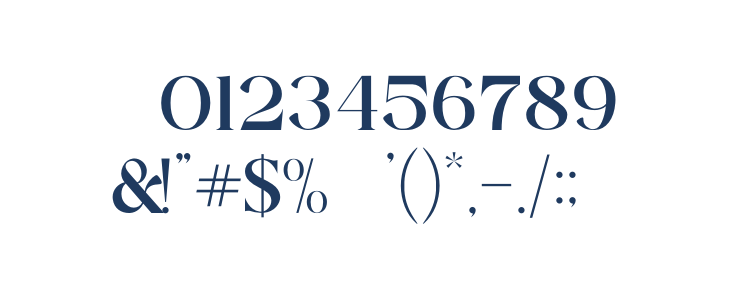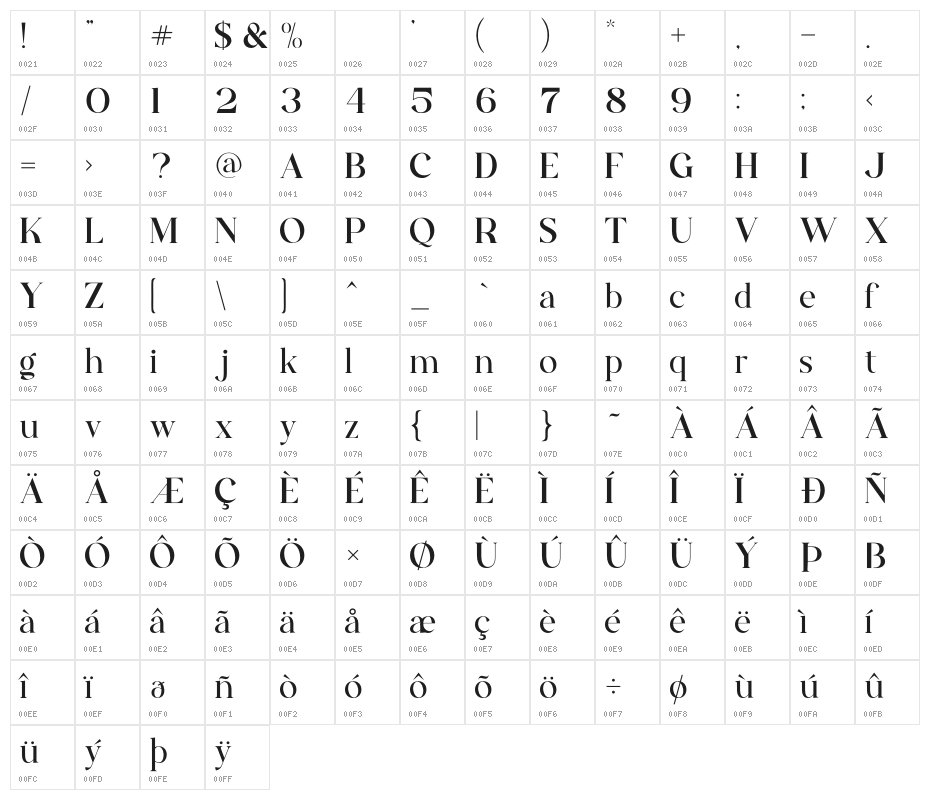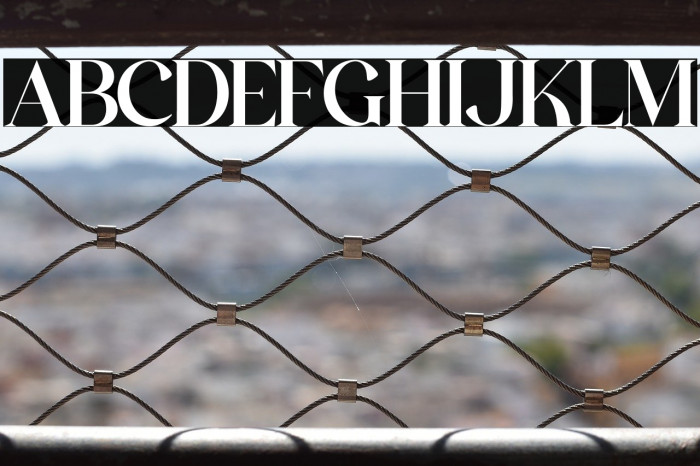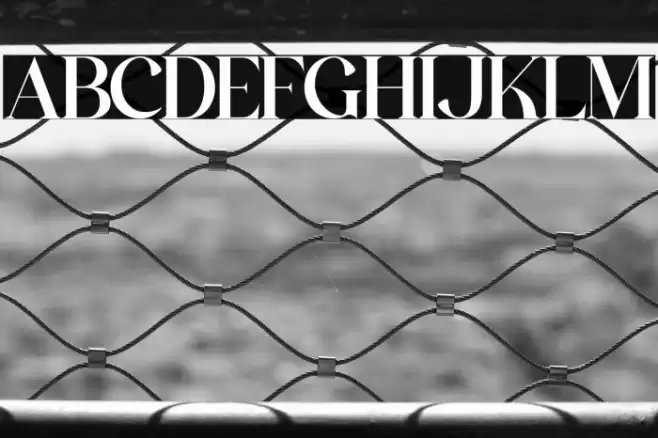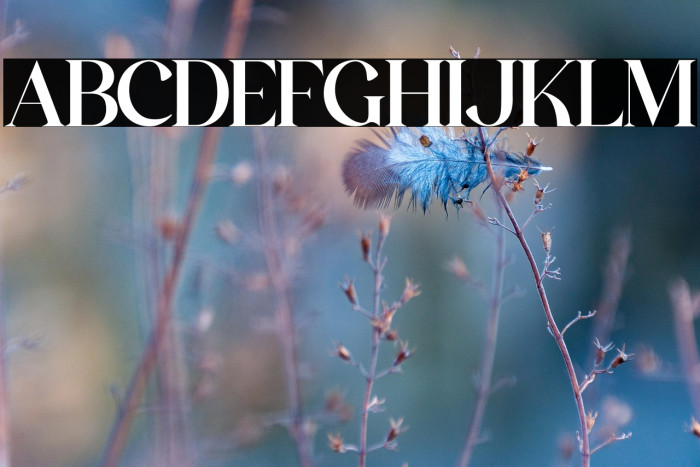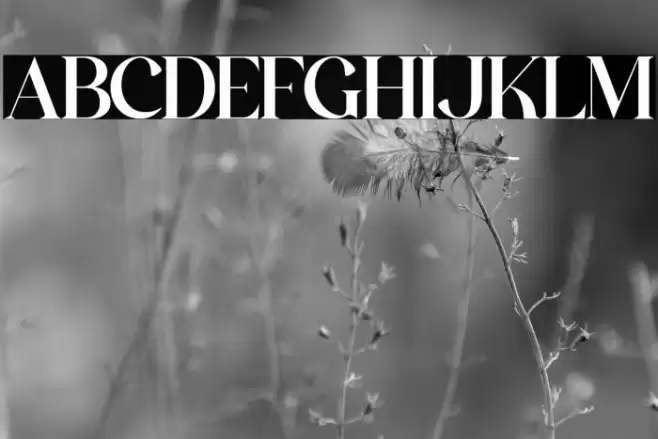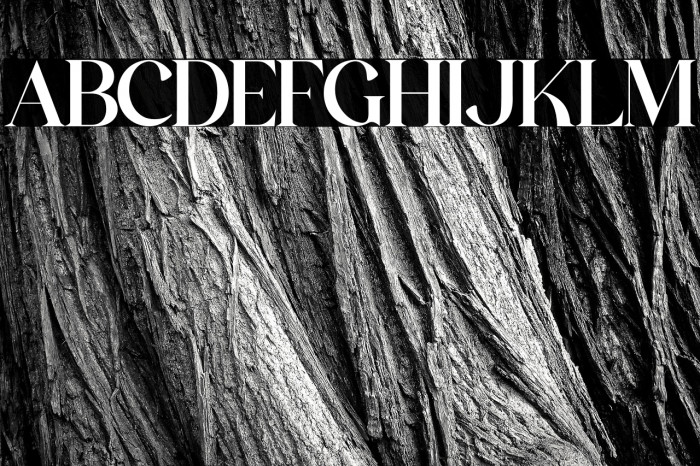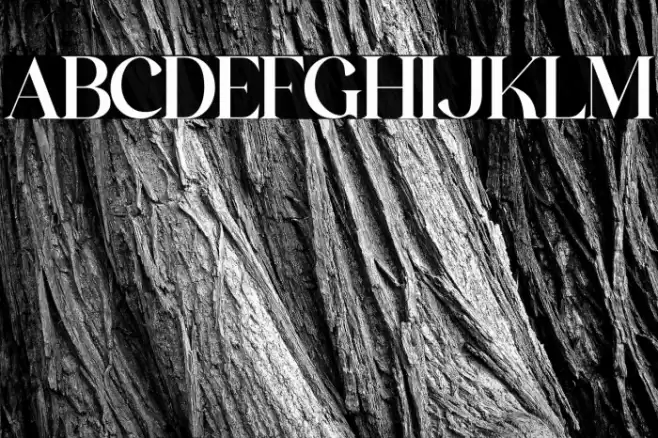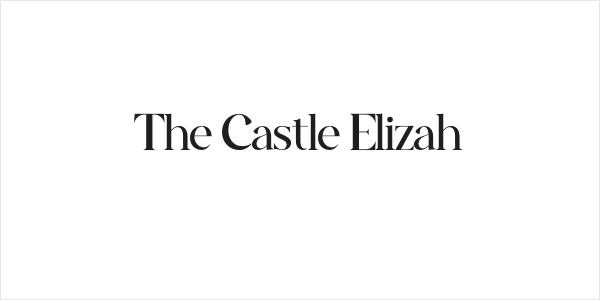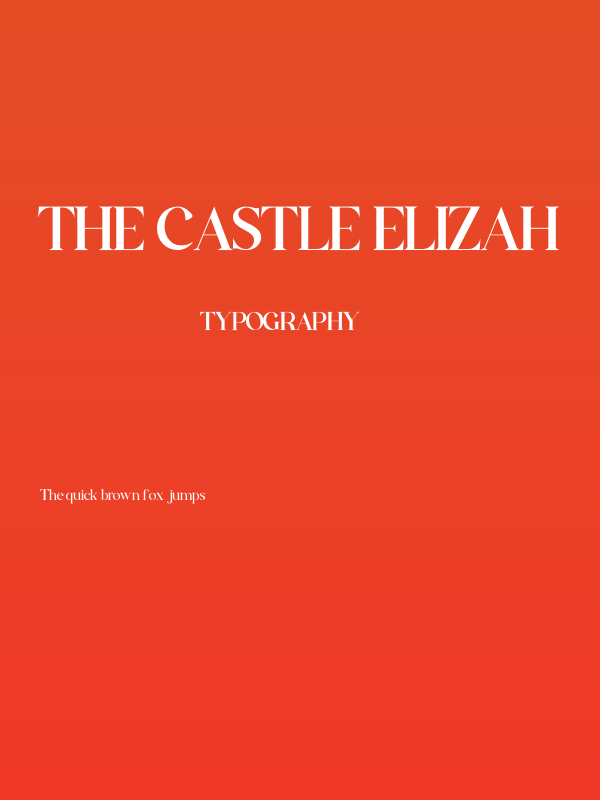
The Castle Elizah Font
The Castle Elizah Description
This font features a sophisticated and elegant serif style, characterized by its high contrast between thick and thin strokes. The serifs are sharp and pronounced, giving it a classic yet modern appeal. The uppercase letters are bold and commanding, while the lowercase letters maintain a graceful flow. Numbers are designed with a consistent style that complements the alphabet. Special characters are crafted with attention to detail, maintaining the overall aesthetic of the font. This typeface is suitable for projects that require a touch of elegance and refinement.
| Use Case | Headlines, Logos, Editorial design |
| Proposed Projects | Ideal for luxury branding, editorial design, wedding invitations, and high-end product packaging. |